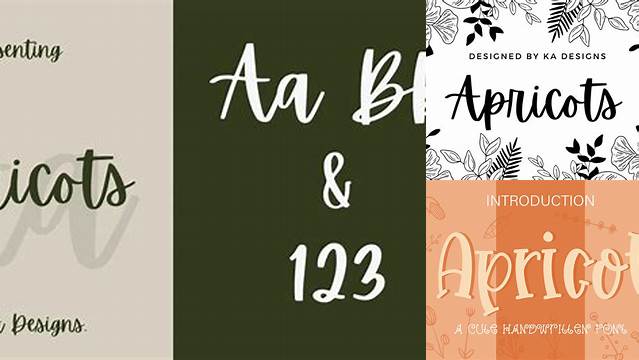
Unveiling the Charm of Apricots Regular Font: Your Next Design Essential
Hey design enthusiasts, let's talk fonts! We've got something super exciting for you today: the Apricots Regular font, and guess what? You can snag it for a free download. This isn't just any font; it's a versatile, friendly typeface that's quickly becoming a favorite for a whole range of projects. Whether you're a seasoned graphic designer, a blogger looking to spruce up your posts, or a student working on a presentation, the Apricots Regular font offers a unique blend of approachability and professionalism. Its clean lines and balanced proportions make it incredibly readable, which is a massive win for any design. We’re talking about making sure your message lands clearly and stylishly, guys. Think about wedding invitations that feel both elegant and personal, branding that speaks volumes without shouting, or even just a simple social media graphic that needs that extra pop. The Apricots Regular font delivers. It’s that go-to font that you’ll find yourself reaching for again and again because it just works. It's designed to be flexible, adapting beautifully to both digital and print mediums. So, if you're on the hunt for a font that combines aesthetic appeal with practical usability, your search might just be over. Let's dive deeper into why this font is a must-have in your digital toolkit and how you can get your hands on it for free.
Exploring the Versatility of the Apricots Regular Typeface
The true beauty of the Apricots Regular font lies in its sheer versatility. Seriously, this font isn't confined to a single niche; it's a chameleon that adapts to suit a myriad of design needs. Imagine crafting a whimsical children's book cover – the Apricots Regular font can bring that playful, inviting feel. Now, picture a sophisticated corporate brochure needing a clean, modern look – yep, this font nails that too. Its balanced weight and well-defined characters ensure legibility across various sizes and applications. We’re talking about everything from tiny app icons to large-format posters. This adaptability is key for designers who need a reliable typeface that won't compromise the integrity of their work. The designers behind Apricots Regular have clearly put a lot of thought into creating a font that feels both contemporary and timeless. It avoids being overly trendy, which means your designs won't look dated in a year. Instead, it offers a subtle elegance that enhances, rather than distracts from, your content. This makes it an excellent choice for branding projects where consistency and a strong visual identity are paramount. Businesses can leverage the Apricots Regular font to create a cohesive look across their website, marketing materials, and product packaging. Even for personal projects, like creating personalized stationery or designing a blog layout, this font adds a touch of polished flair that elevates the overall aesthetic. It’s the kind of font that makes people notice your work in the best possible way, making them feel engaged and connected to the message you’re conveying. It's truly a gem for anyone looking to add a professional yet approachable touch to their creative endeavors.
Apricots Regular Font in Branding: Creating a Memorable Identity
When it comes to building a brand, every single element matters, and the font you choose is a huge part of that puzzle. The Apricots Regular font, with its approachable yet refined character, is an excellent candidate for creating a memorable brand identity. Imagine a startup wanting to convey warmth, trustworthiness, and a modern sensibility. Apricots Regular can be the backbone of their visual language. Its clean curves and balanced letterforms give off a friendly vibe, making customers feel instantly comfortable and connected to the brand. For logos, it can be used in its pure form or perhaps slightly customized to add a unique touch. When applied across various marketing materials – business cards, website headers, social media posts, and email newsletters – this font helps establish visual consistency. This consistency is what builds recognition and reinforces brand recall. Think about how certain fonts instantly remind you of specific companies; that's the power of well-chosen typography in branding. Apricots Regular offers that potential for distinctiveness without being overly quirky or difficult to read. It strikes a fine balance, making it suitable for a wide range of industries, from artisanal food businesses and boutique clothing stores to tech companies focused on user-friendly interfaces. Using it consistently across all touchpoints ensures that the brand's personality shines through, making it more relatable and impactful. It’s about creating a visual signature that resonates with the target audience and sets the brand apart from the competition. So, if you're crafting a brand identity, definitely consider how the warm and versatile Apricots Regular font can help tell your story effectively and leave a lasting impression.
Enhancing Web Design with the Apricots Regular Typeface
In the world of web design, typography isn't just about making text look pretty; it's about ensuring a seamless and engaging user experience. The Apricots Regular font is a fantastic choice for web design because it ticks so many crucial boxes. First off, readability is king on the web. Users are often scanning content quickly, and a font that's hard to read can lead to frustration and higher bounce rates. Apricots Regular's clear letterforms and balanced spacing make it highly legible, even at smaller sizes on mobile devices. This is a massive win for user experience (UX). Secondly, its versatile weight and style mean it can be used effectively for headings, body text, and even call-to-action buttons, providing a cohesive typographic hierarchy throughout your website. This consistency helps users navigate the site intuitively. Furthermore, web fonts need to load quickly to avoid slowing down your page speed, which is a critical factor for SEO and user satisfaction. Many free fonts, including Apricots Regular when properly optimized, can be implemented efficiently. Designers can embed it using CSS, ensuring it displays correctly across different browsers and platforms. The friendly and modern aesthetic of the Apricots Regular font also contributes to a positive brand perception online. It can make a website feel more inviting, accessible, and professional. Whether you're building an e-commerce site, a personal portfolio, or a corporate landing page, this font can help create a visually appealing and user-friendly environment that keeps visitors engaged. Guys, a great font is like the silent salesperson of your website; it guides, informs, and persuades without you even realizing it.
Apricots Regular Font for Print Materials: From Flyers to Brochures
While we often focus on digital applications, the Apricots Regular font shines just as brightly when it comes to print materials. The tactile nature of print requires a font that holds up well on paper, and Apricots Regular delivers. Its clean design ensures crisp edges and excellent legibility in various print formats. Think about flyers and posters – you need a font that grabs attention from a distance and is easy to read up close. Apricots Regular can achieve this balance, making your promotional materials more effective. For brochures and pamphlets, where you have more space for text, its readability becomes even more critical. Whether it's detailing product features, outlining services, or sharing company information, the font needs to guide the reader smoothly through the content. Apricots Regular's friendly appearance makes dense information feel more approachable and less intimidating. Consider business cards; a well-chosen font here is crucial for making a professional first impression. Apricots Regular can lend a touch of modern sophistication to a business card, making it memorable. Even for more formal print documents like reports or proposals, its clarity and balanced design ensure professionalism. Unlike some overly stylized fonts that might look great on screen but become fuzzy or hard to decipher in print, Apricots Regular maintains its integrity. It’s the kind of font that designers appreciate because it translates well across different printing techniques and paper stocks. So, don't underestimate its power for your physical collateral, guys. It’s a reliable workhorse for all your print design needs, ensuring your message looks sharp and feels engaging on paper.
Pairing Apricots Regular with Other Fonts: Creating Typographic Harmony
Finding the perfect font is great, but often, the real magic happens when you pair it with other typefaces. The Apricots Regular font, being so versatile and clean, actually plays very nicely with a variety of other fonts. The key is to create contrast while maintaining harmony. Think about pairing Apricots Regular with a serif font. Serifs (those little feet on the letters) add a touch of classic elegance or a sense of tradition. So, you could use Apricots Regular for your headings or key call-outs to keep things modern and friendly, and then use a classic serif font like Garamond or Times New Roman for the main body text to add a sophisticated, readable contrast. This combination works wonderfully for websites, brochures, and even book layouts. Alternatively, you could pair Apricots Regular with a more decorative or script font for accent purposes. Use Apricots Regular for the bulk of your text to ensure readability, and then use a more unique, perhaps handwritten-style font for specific words or short phrases to add personality and visual interest. This is great for invitations, quotes, or special announcements. The trick here is to ensure the accent font doesn't overpower Apricots Regular and that both fonts complement each other's style. Another approach is pairing it with another sans-serif font that has a distinctly different weight or character. For example, pair the regular weight of Apricots Regular with a bold, condensed sans-serif for strong headlines, and then use Apricots Regular for the supporting text. This creates a clear visual hierarchy. The goal, guys, is to use contrast – whether in style (serif vs. sans-serif), weight (light vs. bold), or mood (formal vs. casual) – to make each font stand out while ensuring they work together cohesively. Apricots Regular's neutral yet friendly base makes it an excellent partner in these typographic conversations.
Final Thoughts on the Apricots Regular Font Download
So, there you have it, guys! We've journeyed through the wonderful world of the Apricots Regular font, exploring its versatility, aesthetic appeal, and practical applications. From enhancing branding and web design to making print materials and educational content shine, this typeface proves itself to be a true gem. Its clean lines, friendly demeanor, and excellent legibility make it a go-to choice for a vast array of projects. The fact that you can download Apricots Regular for free is simply the cherry on top, democratizing good design and empowering creators everywhere. Remember to always be mindful of the font's licensing, use it strategically to create clear typographic hierarchies, and consider pairing it thoughtfully with other typefaces to achieve stunning results. Whether you're a seasoned professional or just starting your design journey, adding Apricots Regular to your font library is a decision you won't regret. It’s a reliable, attractive, and accessible option that consistently delivers. So go ahead, download it, experiment with it, and let your creativity flow. Happy designing!